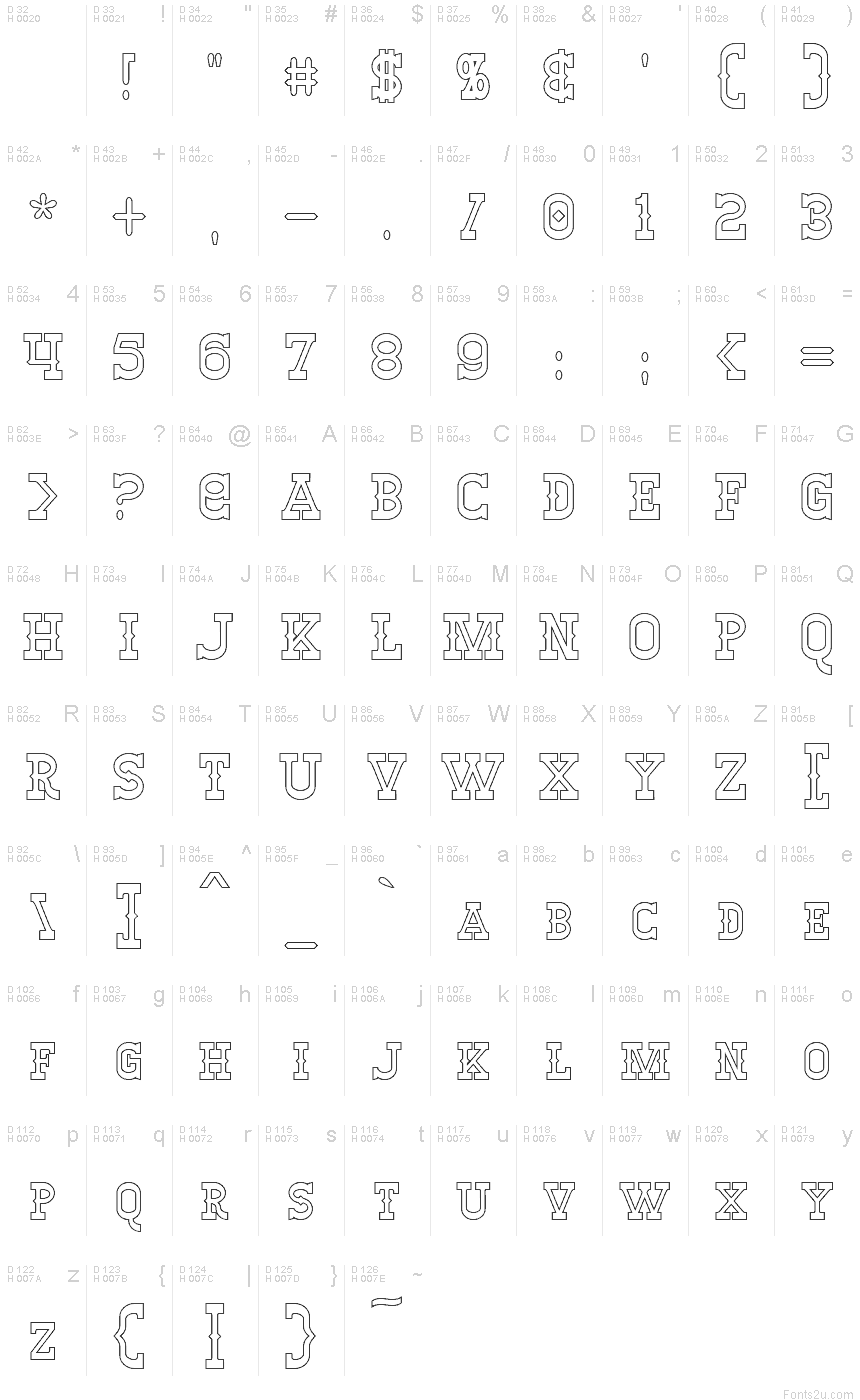
Winslett Hollow by Neale Davidson is a free outlined Western display font with broad slab serifs and emphatic frontier styling. Its wide proportions, squared contours, and split decorative points give the capitals the look of carved saloon lettering.
The Old West reference makes it a fit for rodeo posters and country music artwork. It also suits barbecue packaging and event signage. In branding, the hollow letterforms can turn a ranch, tavern, or heritage product name into a period emblem.